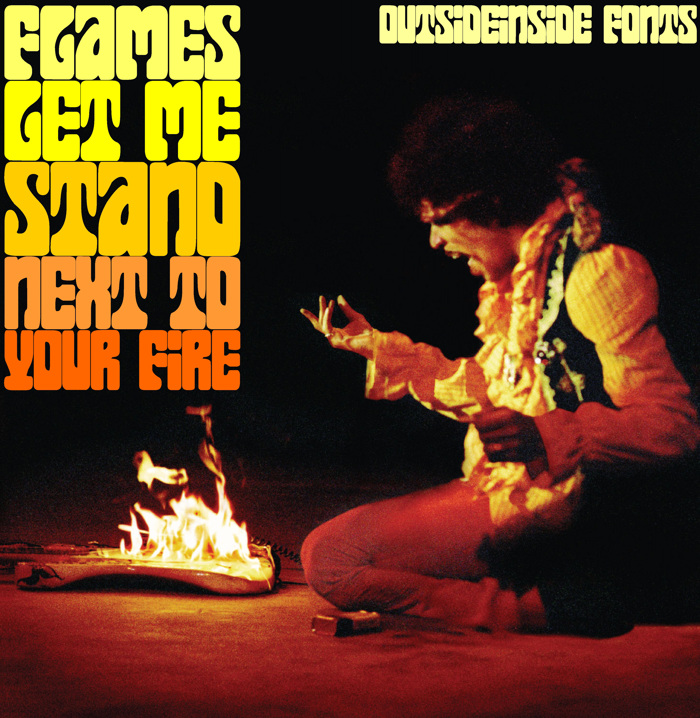
Flames Font
This the first ever digitalization of this psychedelic/art nouveau typeface, that was called "Dreamline" and appeared in 60's-70's Mecanorma catalogs, the year of release was 1969 and it seems to be inspired by Alfred Roller's late 1890's-early 1900's lettering.
"Dreamline" was used extensively in records in the late 60's and early 70's, especially the ones that were made in Europe, i think that it was used as a response to the Wes Wilson lettering.
In the new update, i added the original numerals and the original "Q".